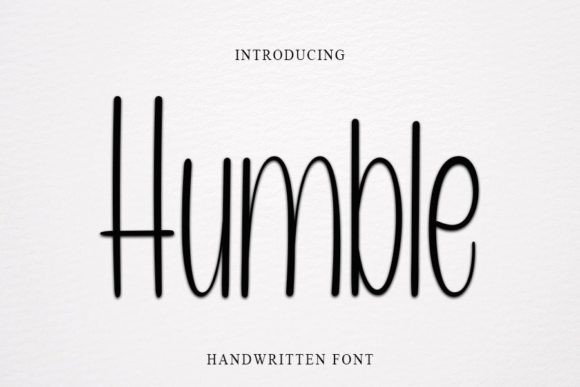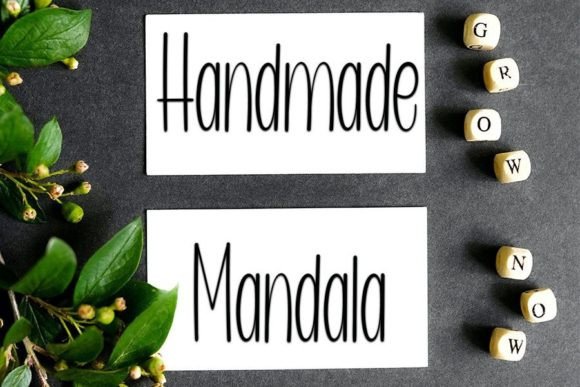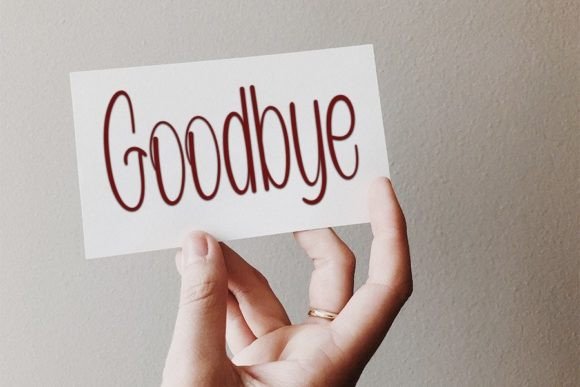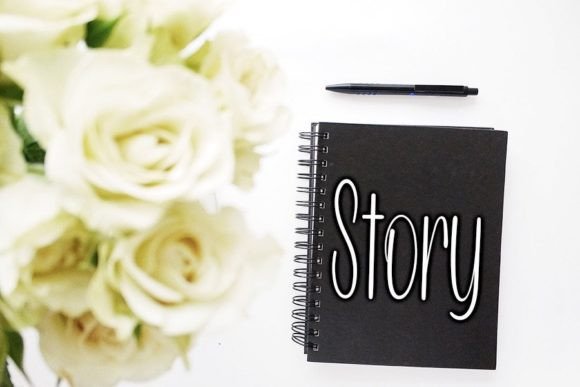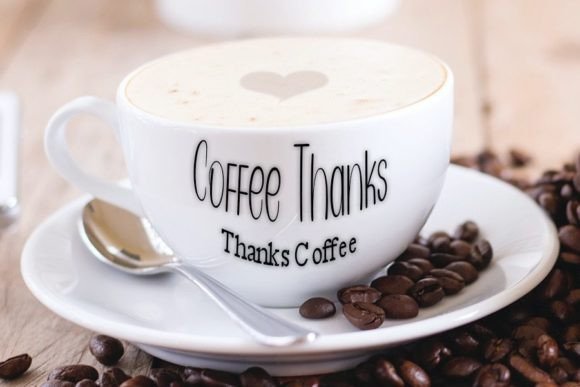
Humble Font
About Humble Font
Humble presents itself as a neat and beautiful handwritten font, characterized by an elegant touch that renders it perfect for a variety of creative projects. Its distinct and timeless style adds a unique flair to designs, making it a versatile choice that captures attention and admiration. Fall in love with the understated beauty of Humble, and leverage its exceptional qualities to create spectacular and memorable designs.
The neatness of Humble contributes to its readability and clarity, ensuring that your message comes across with precision. The handwritten quality adds a personal touch, making it suitable for a range of applications, from personal projects to professional designs.
The beauty of Humble lies in its elegant touch, which elevates it beyond a simple typeface. This elegance makes it a suitable option for projects that require a refined and sophisticated aesthetic. Whether used in branding, invitations, or other design endeavors, Humble brings a touch of timeless style.
Its handwritten charm makes Humble an excellent choice for projects that demand a balance between personalization and professionalism. The font’s versatility allows it to adapt to different themes and contexts, making it a reliable and attractive option for a variety of design applications.
In essence, Humble is more than just a font; it is a design tool that offers a unique combination of neatness, elegance, and timeless style. Its distinct qualities make it an excellent choice for those looking to create visually striking and memorable designs across a spectrum of creative projects. Embrace the humble yet sophisticated charm of this font to infuse your creations with a touch of understated beauty.